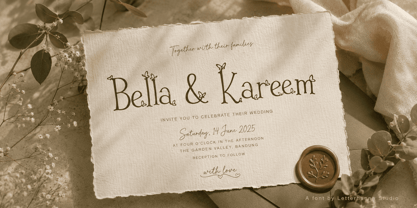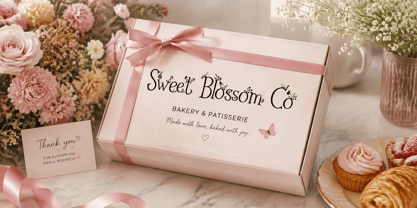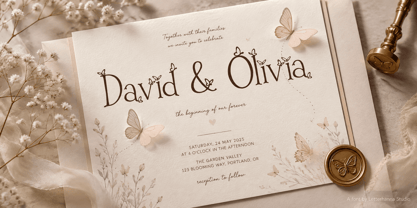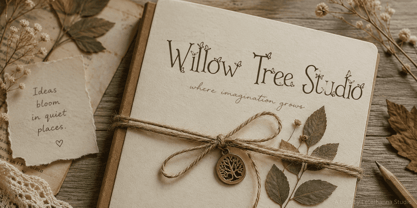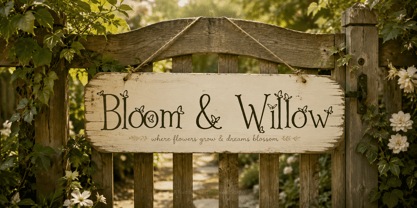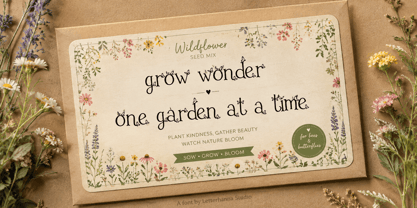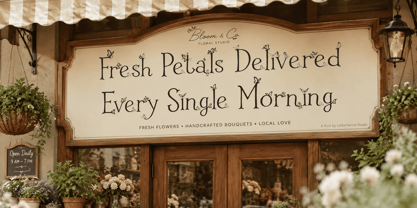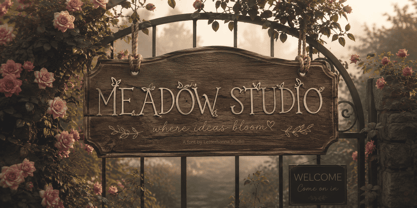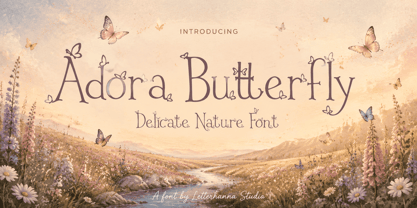
Adora Butterfly
There is a particular kind of morning that every gardener knows — the hush right after sunrise, when dew still clings to the petals and the first butterfly of the day lifts off from a leaf like a small secret being let go. Adora Butterfly was born from that exact moment. It is a garden font built not from cold geometry but from memory: the curl of a vine climbing a trellis, the soft wobble of a butterfly's flight path, the quiet elegance of a flower bed left slightly wild on purpose.
If you have been searching for a garden font that feels alive rather than printed, Adora Butterfly might be the missing piece in your next design. This is not just another script trying to look pretty — it is a nature font designed with intention, where every swash and every tiny illustrated wing was placed to tell a story about growth, softness, and quiet joy.
The Shape and Structure
Adora Butterfly is built on tall, slender serif letterforms that lean gently into elegance without ever feeling stiff. The strokes are thin and confident, almost hand-drawn, giving each letter the appearance of a stem reaching toward light. Ascenders stretch upward with a graceful curve, while descenders loop softly downward, echoing the way vines wrap around a garden fence. There is intentional asymmetry in the letterforms, because nothing in a real garden is perfectly uniform either. Even the spacing between characters was considered carefully, so that each word reads less like a printed line and more like a small path winding gently through a flower bed.
What sets this butterfly font apart is its living details. Delicate hand-illustrated butterflies perch naturally on dots, crossbars, and ascenders throughout the alphabet, as if they wandered into the composition mid-flight and decided to stay. They are not decorations added after the fact; they are woven into the anatomy of the letters themselves, turning ordinary words into small illustrated scenes that reward a closer look.
The Style
Adora Butterfly sits comfortably between a classic serif and a whimsical hand-lettered script, which makes it remarkably versatile. It carries enough structure to read as sophisticated, yet enough softness to feel warm and approachable. This balance is exactly why it works so well as a garden font for branding — it can dress up a seed packet just as easily as it can elevate a wedding invitation or a boutique storefront sign.
The letterforms breathe. Wide, generous spacing between characters allows every curve and every butterfly detail to be seen clearly, rather than crowding the page. This openness is part of what makes it such an effective nature font: it mimics the way light moves through open garden space, unhurried and gentle, giving every design room to feel calm rather than busy.
The Vibe
If Adora Butterfly could be described in a single feeling, it would be a quiet afternoon spent among wildflowers with nowhere else to be. It is romantic without being fussy, feminine without being fragile, and nostalgic in a way that feels comforting rather than dated. There is a storybook quality to it, the kind of lettering you might expect to find on the cover of a botanical journal passed down through generations, its pages soft at the corners from years of loving use.
This is a font that understands restraint. It does not shout for attention; it invites people closer, the way a beautiful garden invites a second glance. That gentle pull is precisely why designers reach for a garden font like this one when the goal is connection rather than noise, and why it continues to feel fresh long after trendier styles fade.
Where It Belongs
Adora Butterfly finds its natural home anywhere softness and nature intersect. Think seed packaging, floral shop branding, garden-to-table restaurant menus, botanical candle labels, spring and summer wedding suites, nursery wall art, journal covers, and social media graphics for plant-based small businesses. Because it functions equally well as a butterfly font accent and a full nature font for headlines, it adapts easily across product lines without losing its identity.
Whether you are building a brand around slow living, launching a floral studio, or simply designing a birthday card that deserves a little magic, this font brings texture and story to the page in a way plain typefaces simply cannot.
Bring the Garden to Your Design
Every great design tells a small story before a single word is read, and typography carries more of that weight than most people realize. Adora Butterfly gives your project a voice that feels handcrafted, romantic, and quietly alive, like stepping into a garden mid-bloom.
If you are ready to add warmth, movement, and a touch of storybook charm to your next project, Adora Butterfly is waiting. Download it today, pair it with your favorite botanical illustrations, and watch your design bloom into something truly memorable.
Designer: Rinaldo Hasibuan